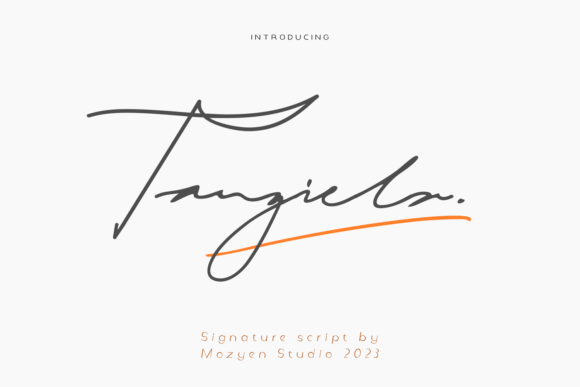
In a world of monotonous typography, meet Tangiela – a font so captivating, it'll redefine your creative horizons. This mesmerizing script, crafted by the ingenious minds at Mozyenstudio, is a symphony of elegance, femininity, and sophistication. Prepare to be enchanted as Tangiela elevates your projects to new heights of aesthetic appeal.
Imagine your cosmetics products adorned with Tangiela's graceful curves, exuding an aura of luxury and allure. Envision your wedding invitations, bearing Tangiela's delicate strokes, becoming cherished keepsakes of your special day. Let Tangiela's charm infuse your branding with a touch of timeless grace, leaving an indelible mark on your customers' minds.
Tangiela is not just another font; it's an experience, an expression of your unique style and vision. Its meticulously crafted characters dance across the screen, evoking emotions and creating connections. With Tangiela, your words become art, your designs become masterpieces.
Unleash your creativity with Tangiela's versatility, seamlessly adapting to a myriad of design projects. From photography to trademarks, from logos to social media graphics, Tangiela effortlessly enhances your visual communication, transforming the ordinary into the extraordinary.
But Tangiela's allure extends beyond mere aesthetics; it's a practical powerhouse, meticulously designed for the digital age. Its PUA encoding ensures effortless access to a treasure trove of glyphs and swashes, empowering you with endless creative possibilities. Whether you're crafting a captivating mobile app or designing a stunning website, Tangiela is your trusted companion, ensuring your projects shine with distinction.
Join the Tangiela revolution and discover a font that's more than just a collection of letters; it's a gateway to a world of endless creative possibilities. Let Tangiela ignite your passion, fuel your imagination, and transform your designs into works of art. Don't settle for mediocrity; embrace Tangiela today and unlock the true potential of your creative genius!